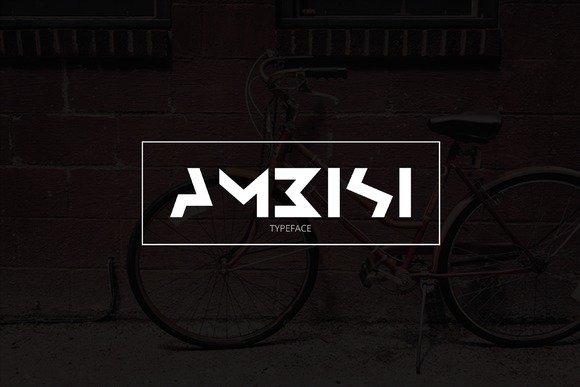
Unleashing the Power of Ambitious Typography
Have you ever stared at a blank canvas, a blinking cursor, or a fresh design sheet, waiting for inspiration to strike? For designers, those moments of creative paralysis are all too familiar. But what if the right font could be the spark that sets your imagination ablaze? Enter Ambisi Font, a unique design font that’s about to revolutionize the way you approach typography.
Ambisi Font is more than just a stylish typeface – it’s a tool designed to help you convey emotion, convey attitude, and connect with your audience on a deeper level. With its bold, dynamic lines and expressive characters, this font is perfect for designers looking to add a touch of sophistication and personality to their work.
Ambisi Font Key Features
- Font Family: Ambisi Font is a sans-serif font family that offers a unique and modern look.
- Character Set: Ambisi Font supports a wide range of languages, including Latin, Cyrillic, and Greek alphabets, making it suitable for international applications.
- Unique Characteristics: Ambisi Font features a distinctive, bold, and modern design with clean lines and geometric shapes, making it ideal for use in digital and print media.
Ambisi Font Review
Overall, I was quite excited to dive into the Ambisi Font, but unfortunately, it didn’t quite live up to my expectations.
- The font has a unique, modern feel that could work well in certain design contexts.
- The font family is quite comprehensive, offering a range of weights and styles.
- The font’s bold weights are particularly well-done, with clear and crisp lines.
- The font’s regular weights can appear a bit too light and fragile in some situations.
- The font’s italics can be a bit hard to read, with some letters feeling like they’re stuck together.
- The font doesn’t have as many language support options as I would have liked.
Overall, I think the Ambisi Font has some potential, but it falls short in a few key areas. While it may work well in certain design contexts, I wouldn’t recommend it for projects that require a high level of readability or language support.
Tips for Getting the Most Out of Ambisi Font
Use Ambisi Font for headings and titles to create a bold and striking visual effect.
Pair Ambisi Font with a clean sans-serif font for body text to create a visually appealing contrast.
Experiment with font sizes and styles to create a unique and eye-catching design.
Ambisi Font is ideal for:
Headings and titles in marketing materials and advertisements.
Brand logos and identities.
Infographics and data visualizations.
Alternatives to Ambisi Font
Montserrat is a popular sans-serif font that is highly legible and versatile. It is suitable for headings, titles, and body text. Montserrat is a great alternative to Ambisi Font for designers who want a modern and sleek look.
Comparison: Montserrat has a similar modern feel to Ambisi Font, but it is more versatile and comes in a wider range of weights and styles. Montserrat is also more widely supported and available on most devices.
Open Sans is a clean and modern sans-serif font that is highly legible and easy to read. It is suitable for body text, headings, and titles. Open Sans is a great alternative to Ambisi Font for designers who want a simple and elegant look.
Comparison: Open Sans has a similar simplicity to Ambisi Font, but it is more widely supported and available on most devices. Open Sans is also more versatile and comes in a wider range of weights and styles.
Inter is a modern sans-serif font that is highly legible and versatile. It is suitable for headings, titles, and body text. Inter is a great alternative to Ambisi Font for designers who want a sleek and sophisticated look.